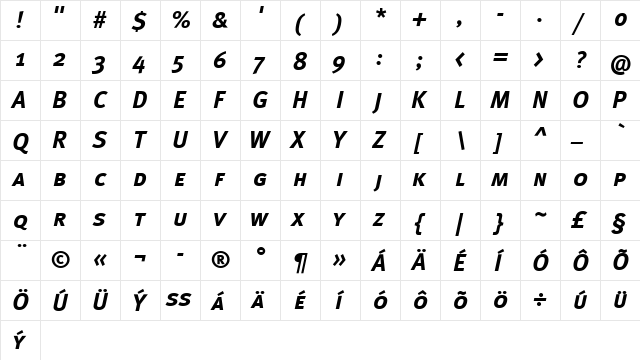
MetaBoldCE Medium Italic Font Preview
MetaBoldCE Medium Italic
Design Context for MetaBoldCE Typeface
MetaBoldCE takes a measured approach to typography — its balanced proportions and neutral character make it a reliable workhorse for both digital and print work. Its italic angle brings a sense of urgency and motion to the letterforms. The heavy weight commands attention and anchors typographic hierarchies.
Pro Tip: Use MetaBoldCE for emphasis, pull quotes, and subheadings where its slanted energy can add rhythm to the layout.